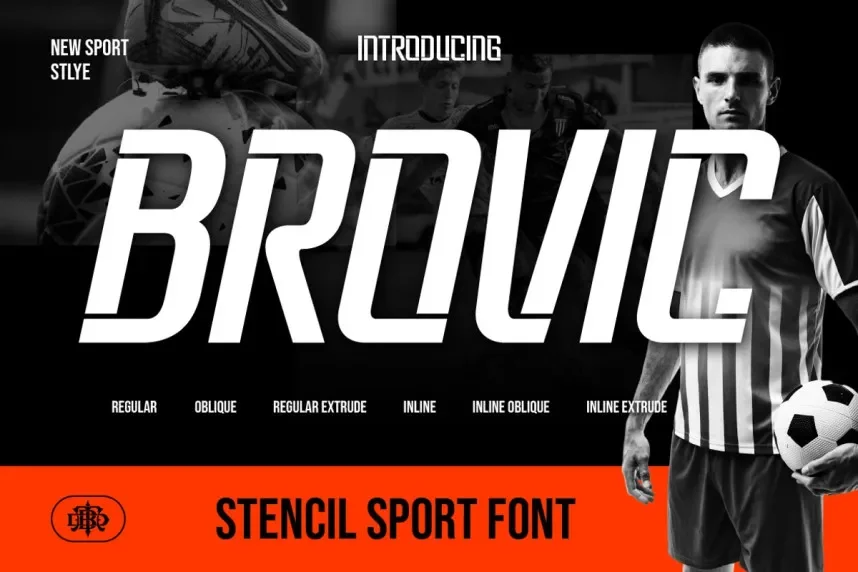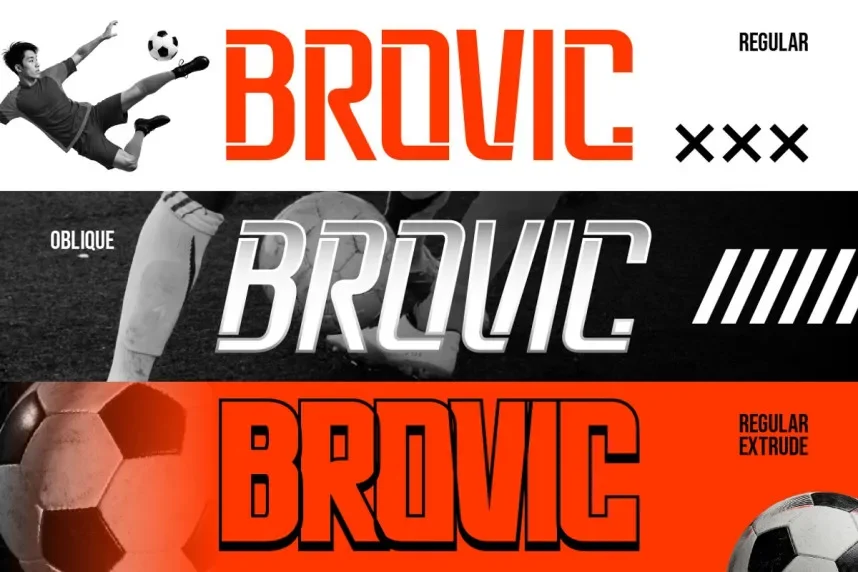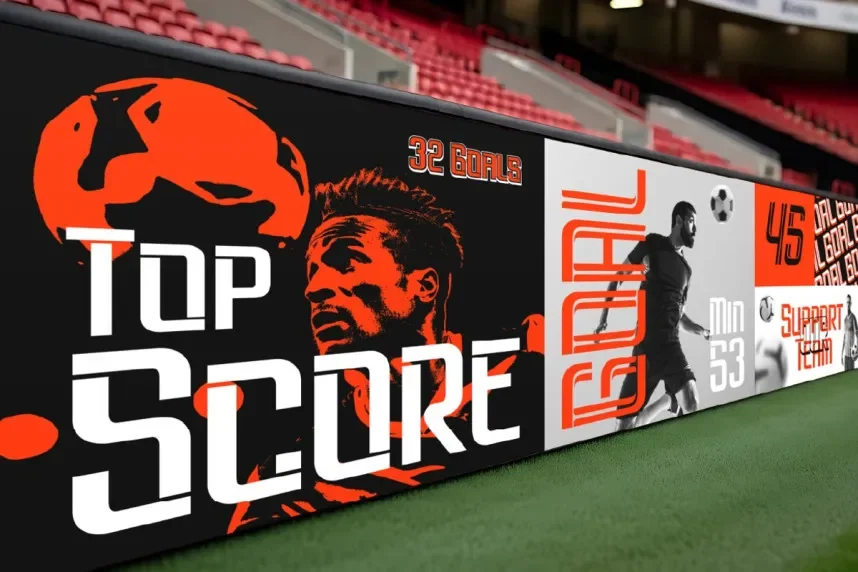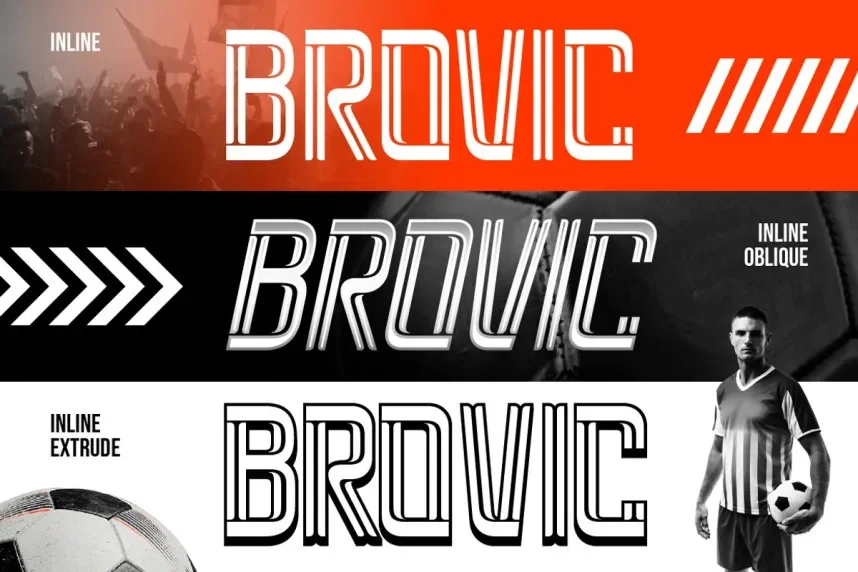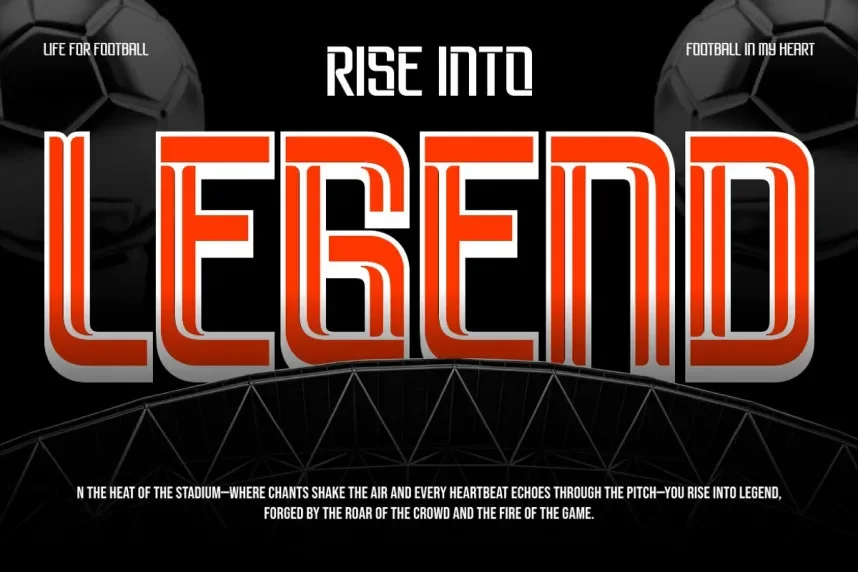
Brovic Font is designed for projects where consistent spacing and interface clarity are critical.
It is commonly classified as a modern sans-serif, featuring clean curves, stable x-height, and balanced stroke weight. These traits support readability in navigation menus, dashboards, and structured layouts.